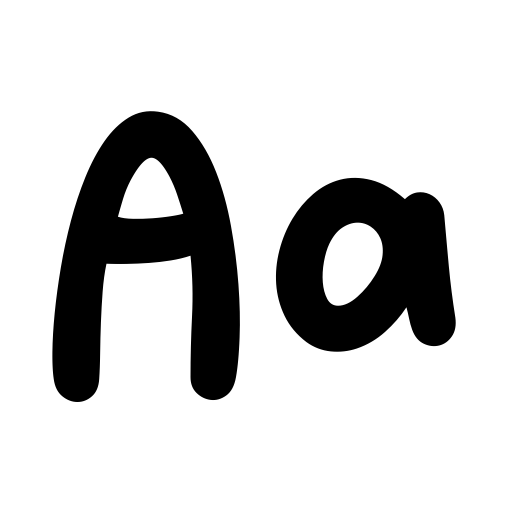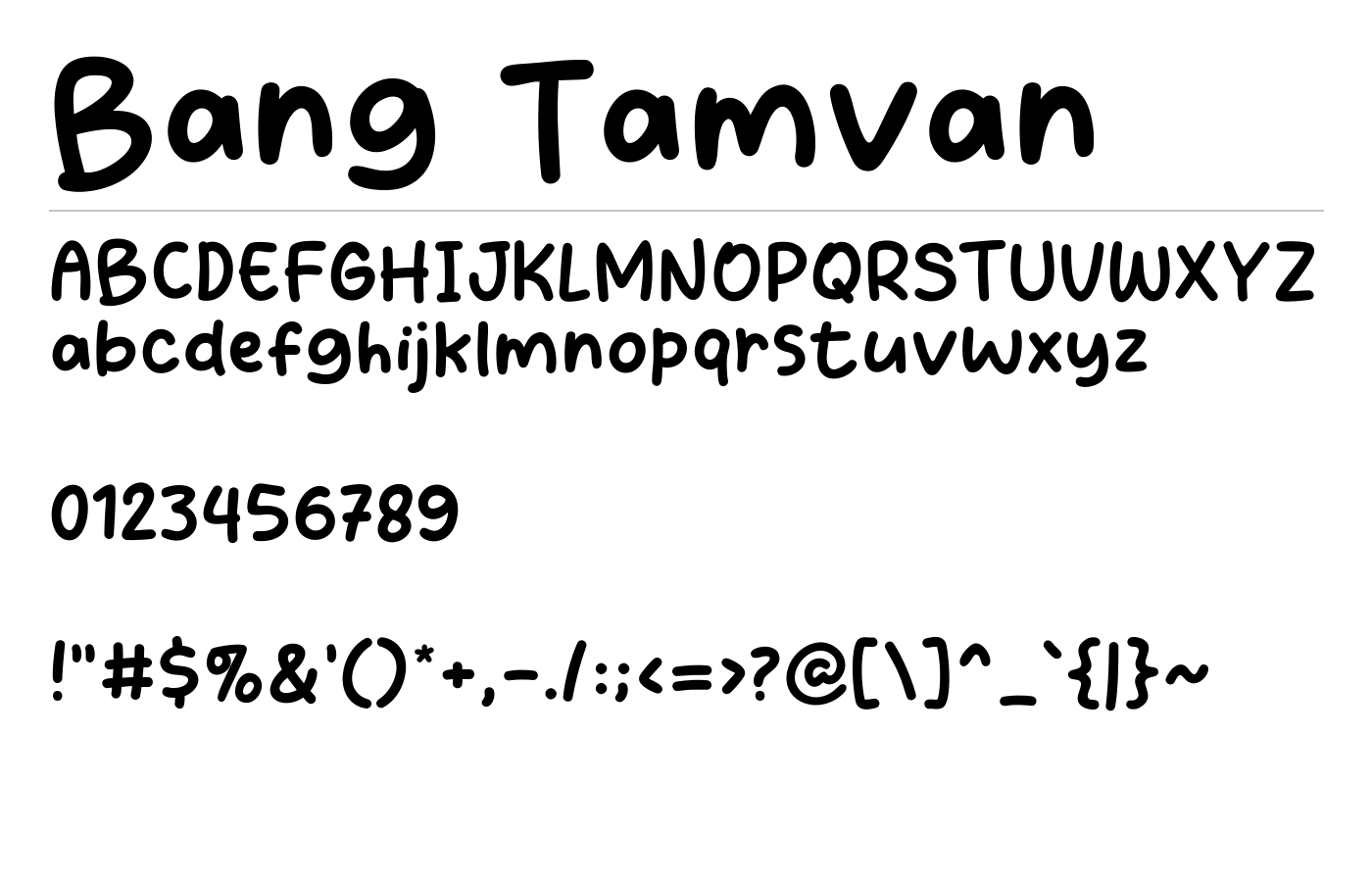
Bang Tamvan is a playful and casual handwritten sans serif font with rounded, soft edges and a friendly, approachable feel. Its consistent medium weight and upright letterforms make it highly legible while conveying a relaxed, informal style, perfect for creative projects, children's materials, or branding that seeks warmth and personality. This font works well in headlines, logos, and any design that benefits from a personal touch and clear readability.
Bang Tamvan Font
About Bang Tamvan Font
| Font family | Bang Tamvan Font |